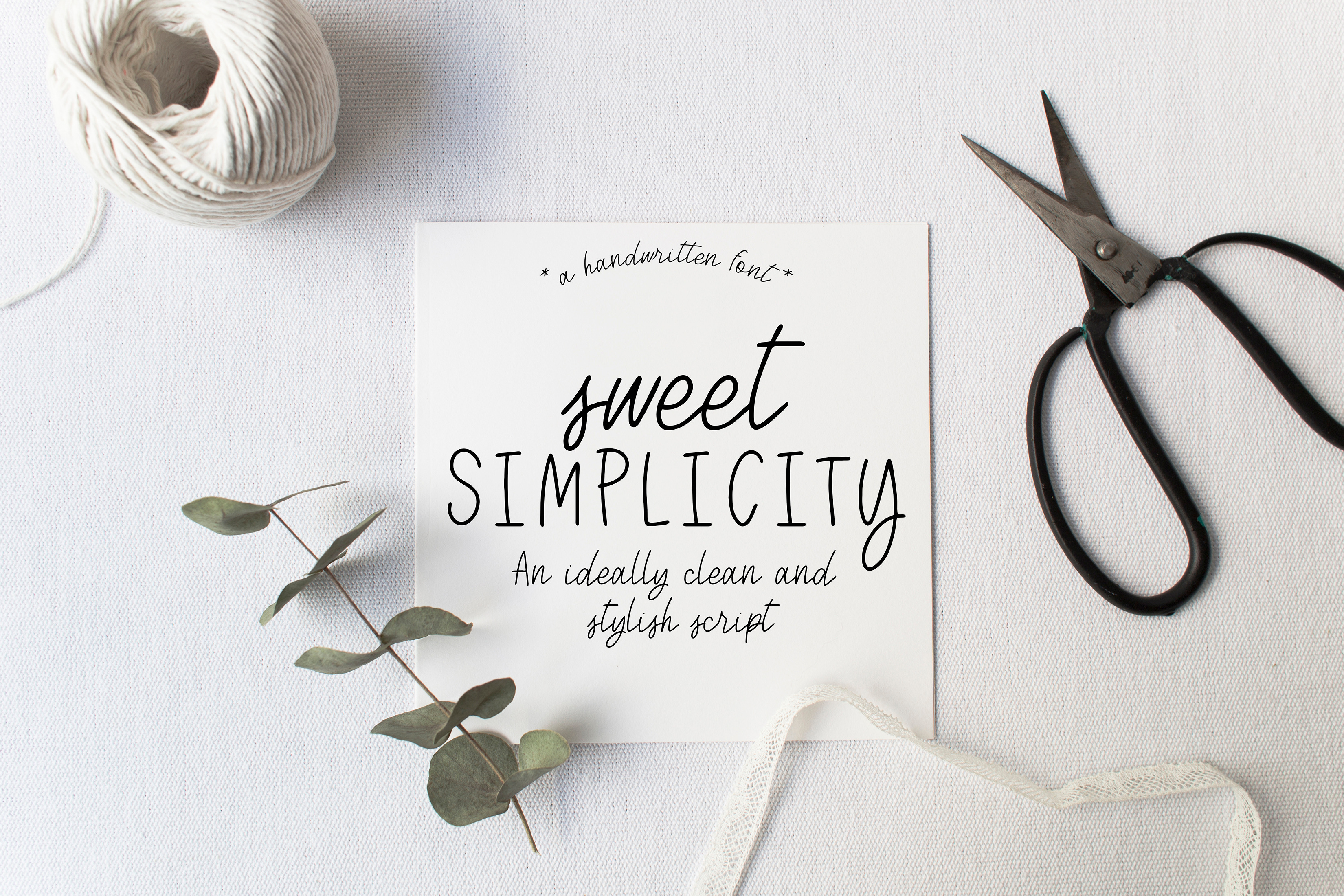
Sweet Simplicity~A Handwritten Font
When designing Sweet Simplicity, I imagined a script font that was easy to read that still had the flair of calligraphy.
Sweet Simplicity is a clean, and stylish script calligraphy font that is simple and easy to read. This hand-lettered script will look ideal on all your designs, wedding invites, branding materials, logo's, business cards, and quotes.